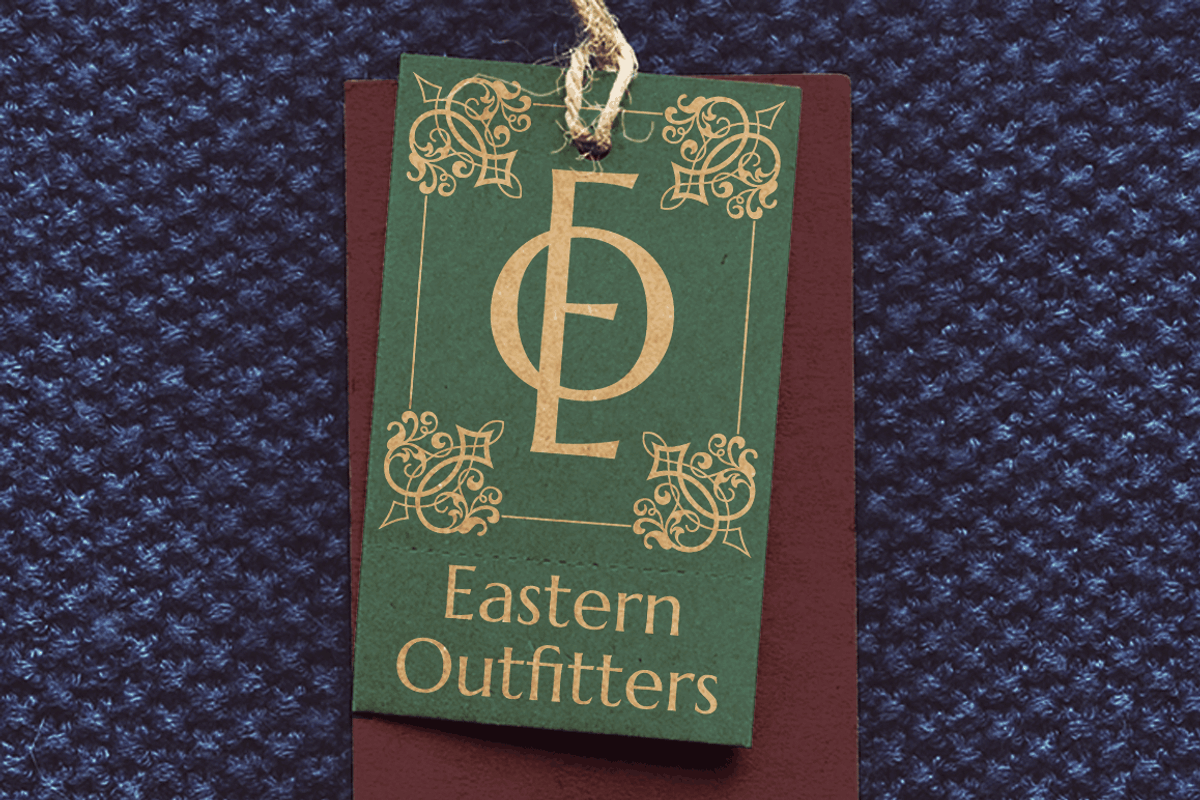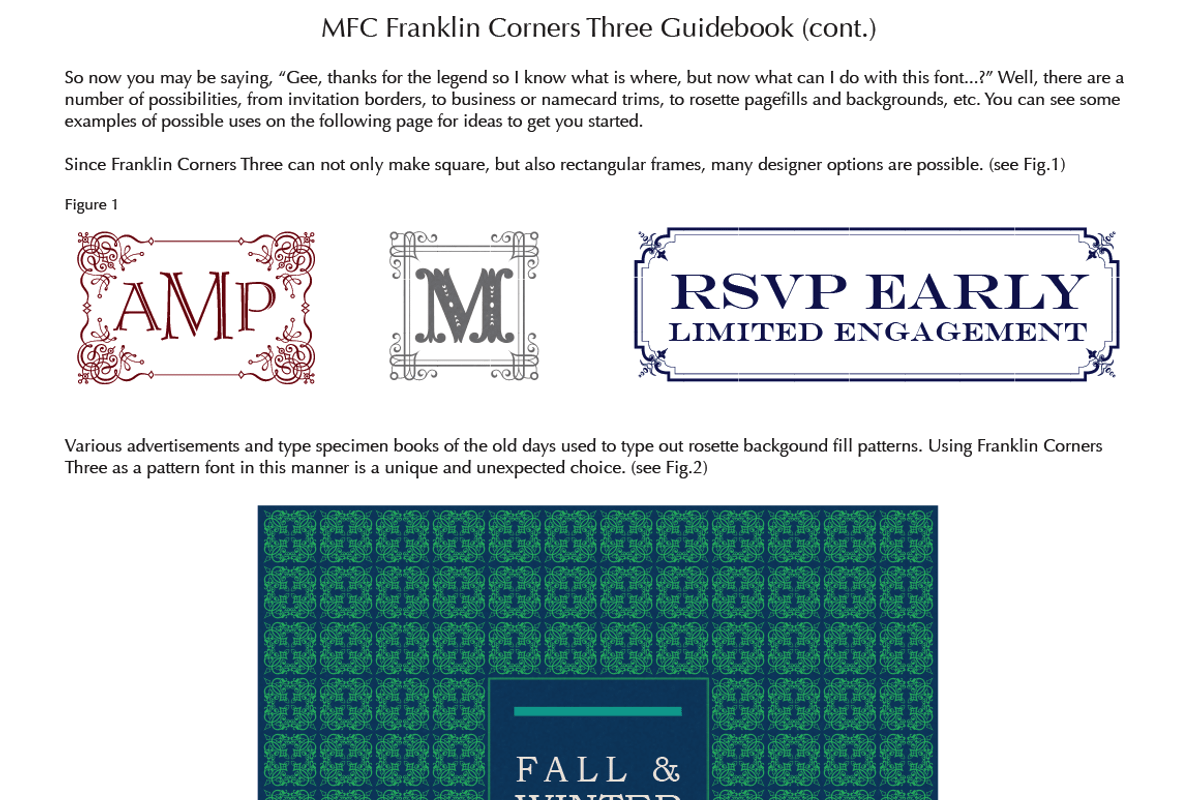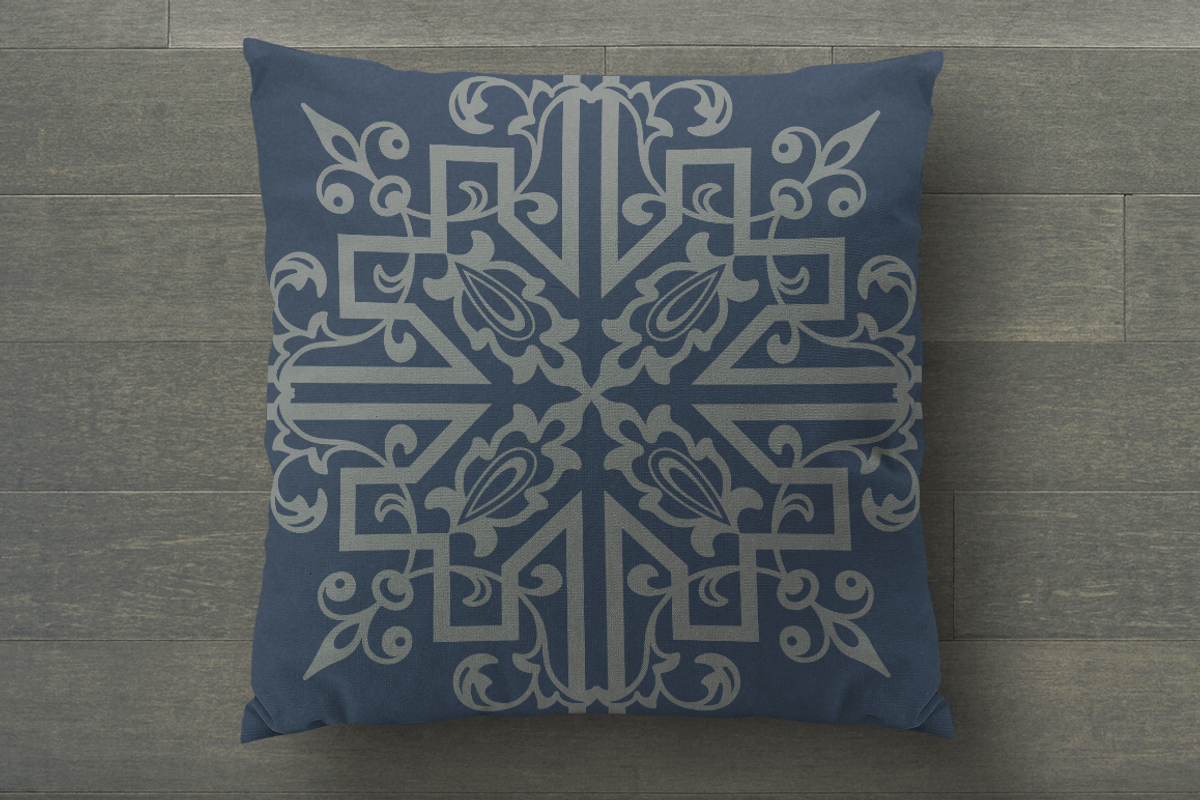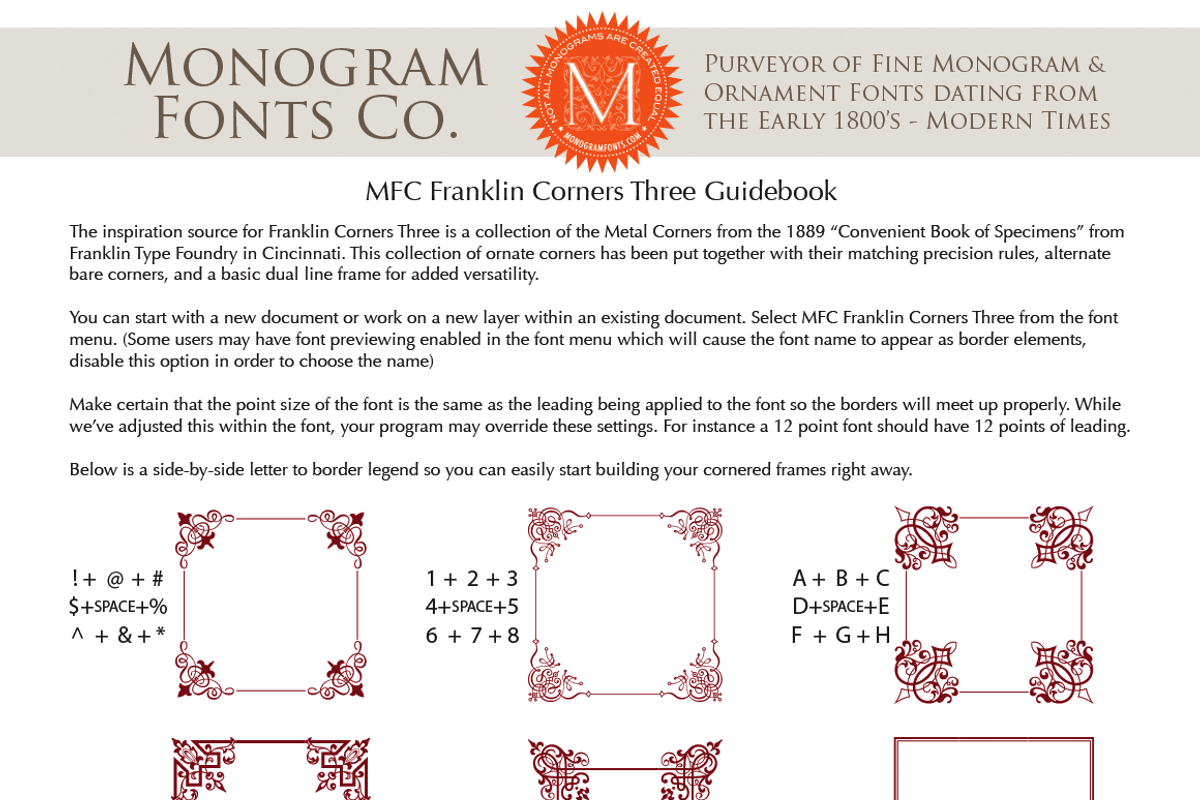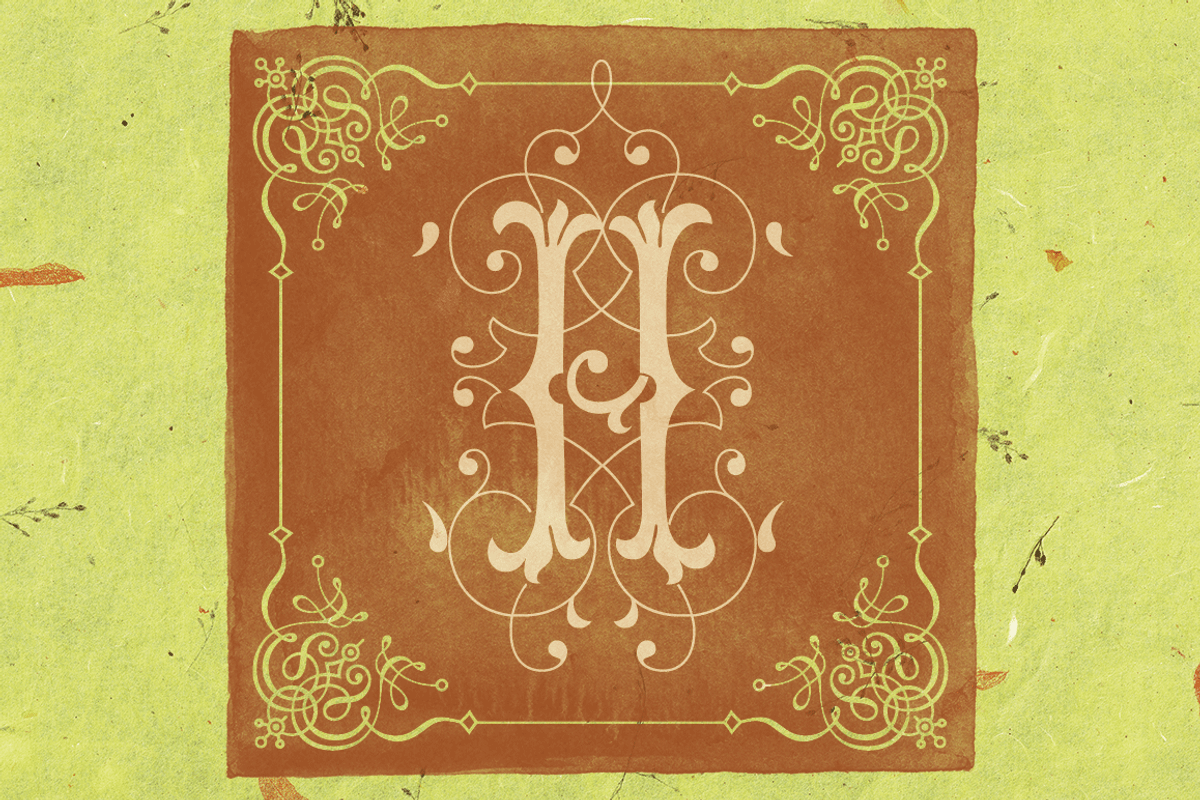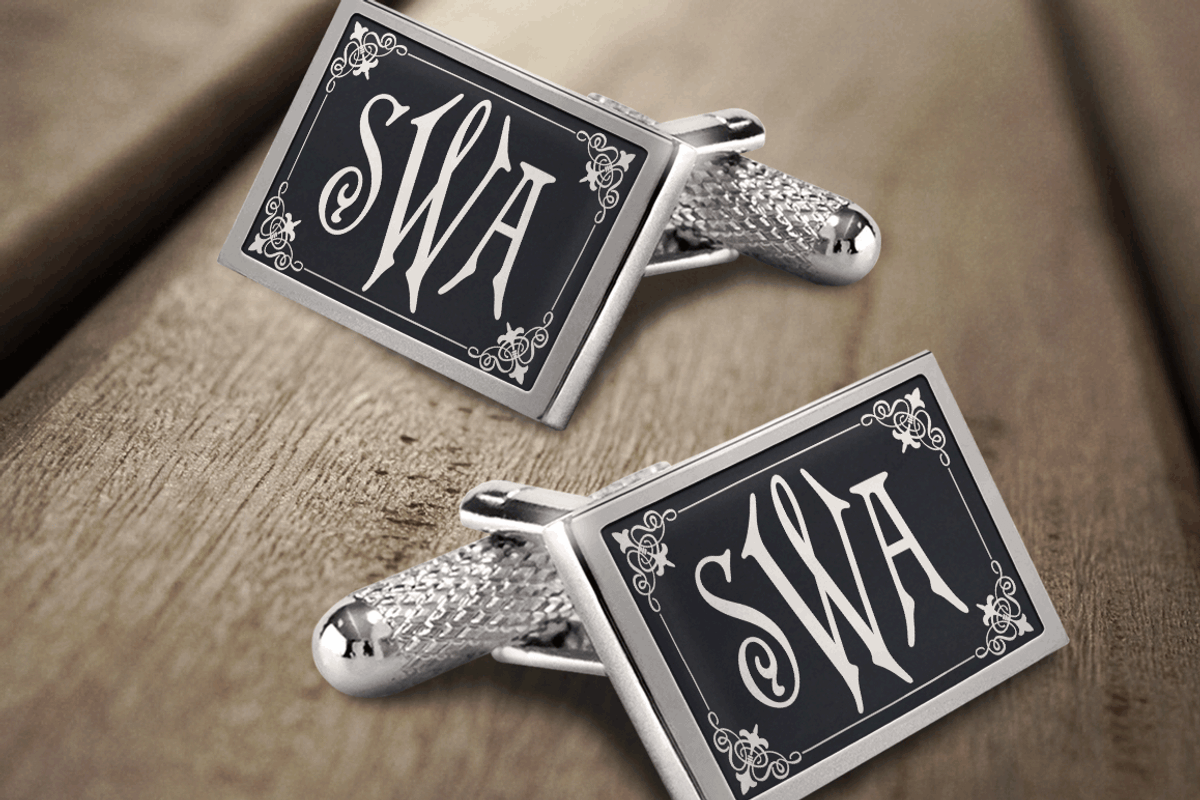
MFC Franklin Corners Three
MFC Franklin Corners Three by Monogram Fonts Co. is a font selected for branding, posters, packaging, typography.
- This collection of ornate corners has been put together with their matching precision rules, alternate bare corners, and a basic dual line f
Why MFC Franklin Corners Three is worth a look
MFC Franklin Corners Three by Monogram Fonts Co. fits naturally into Branding, posters, packaging, typography.